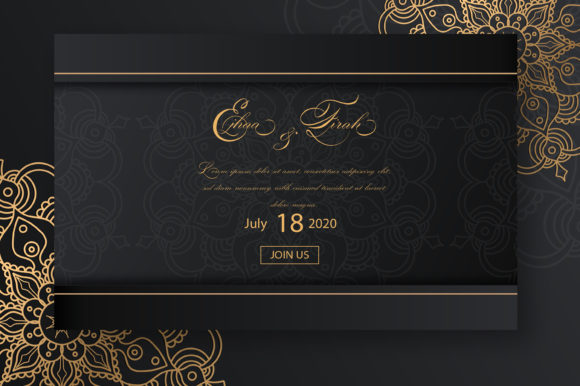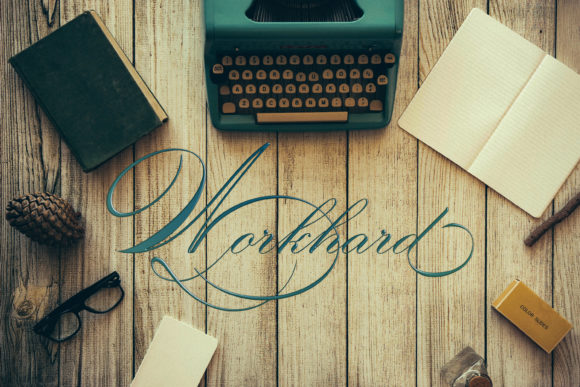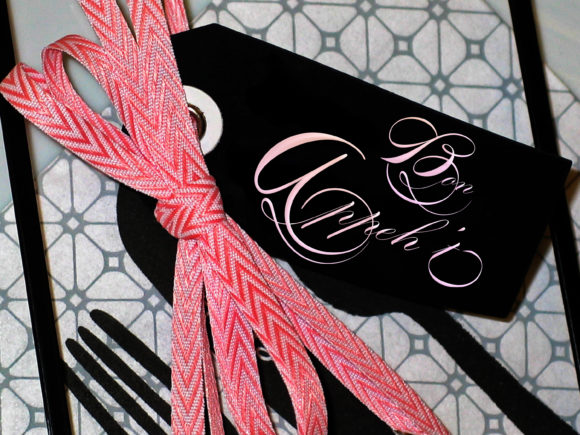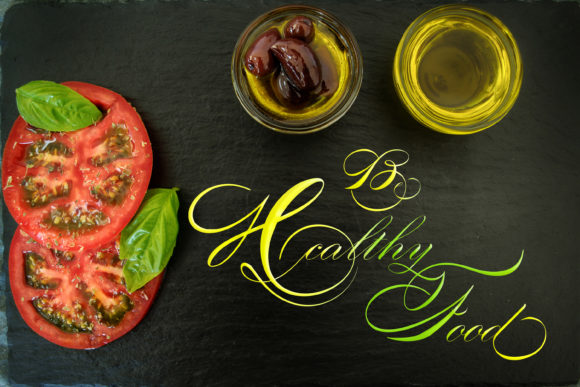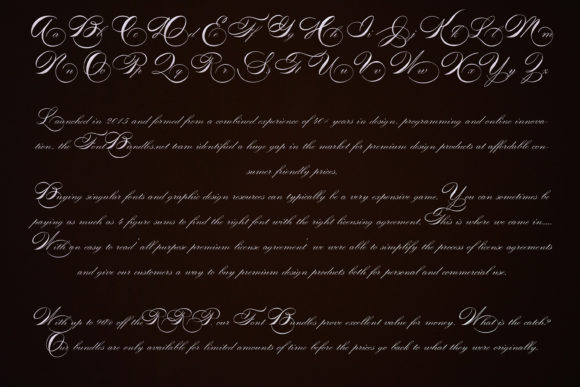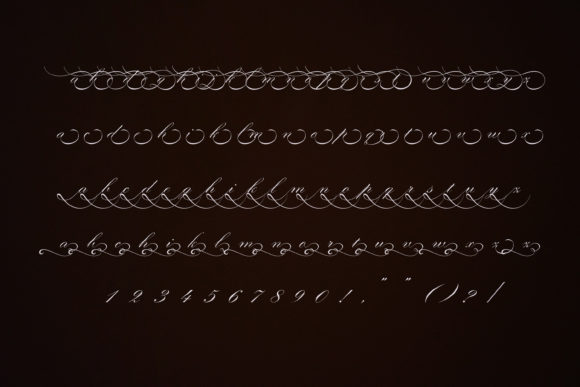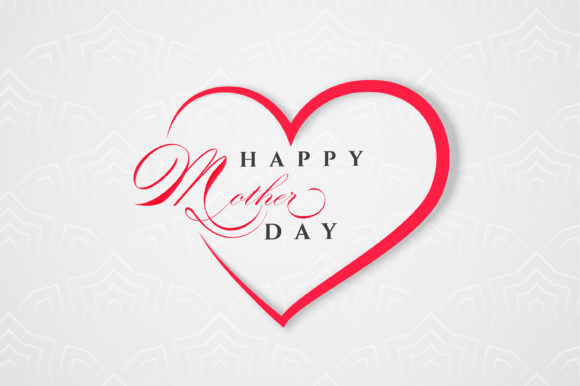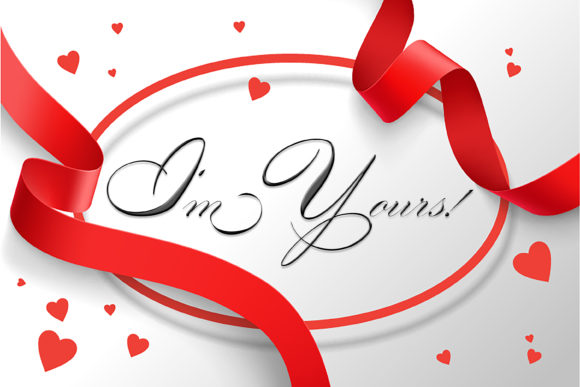
Morena Font
About Morena Font
Morena is a calligraphy script designed with high detail to bring stylish elegance. Get inspired by its clean look & feel!